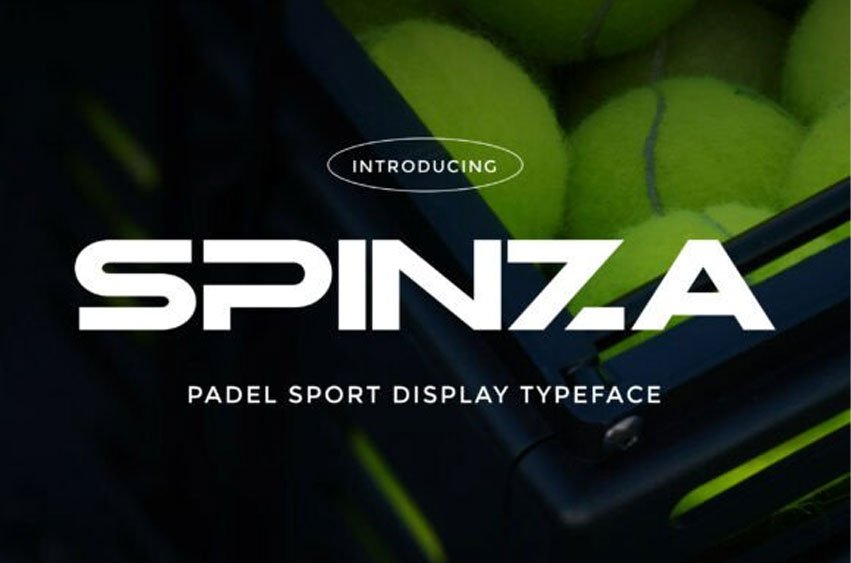
Spinza Font is a dynamic and modern sport display typeface built for speed, power, and precision. With its strong geometric structure, sharp angles, and bold athletic presence, Spinza brings an energetic impact to every design.
Perfect for padel, tennis, sports branding, team identities, posters, scoreboards, and high-intensity promotional graphics.